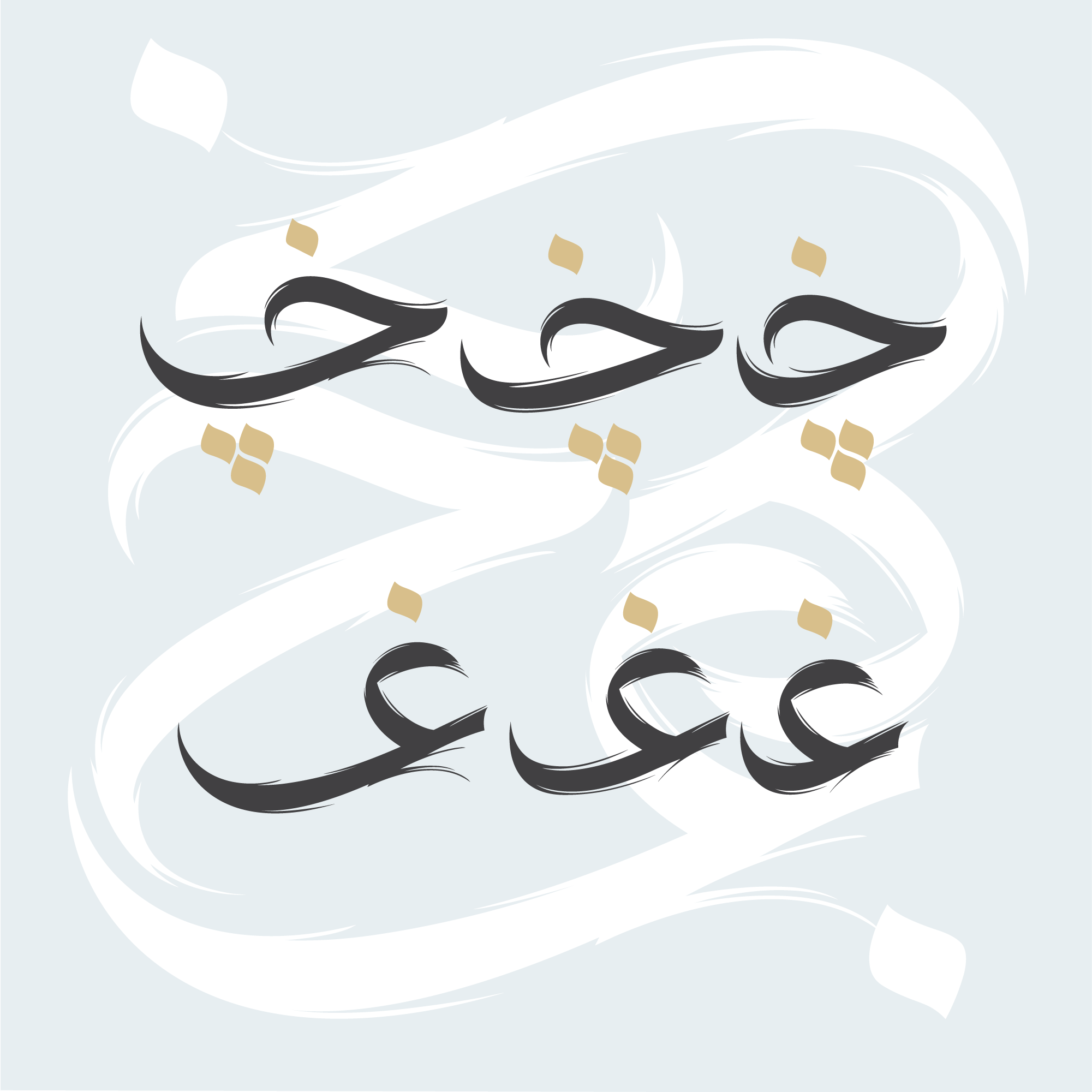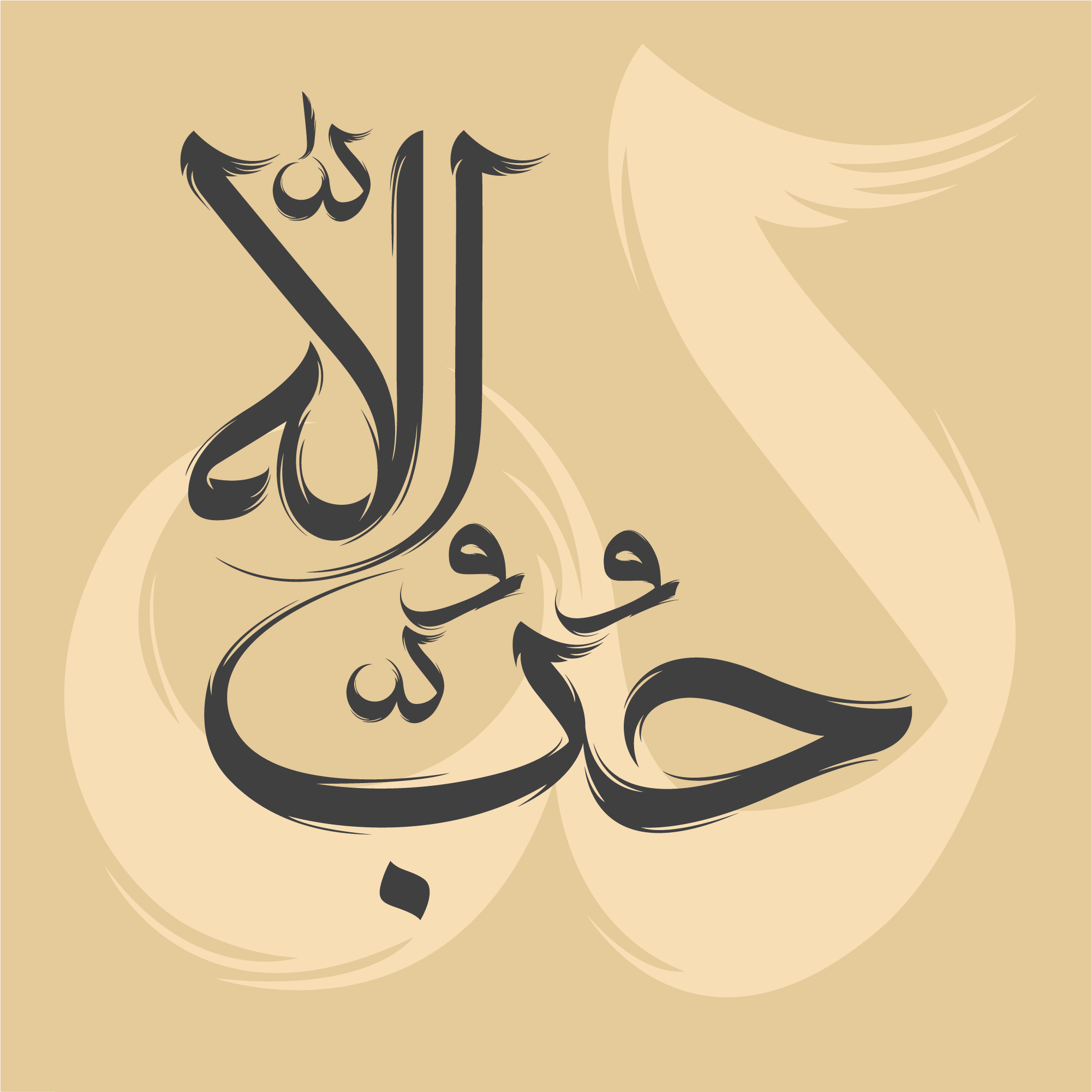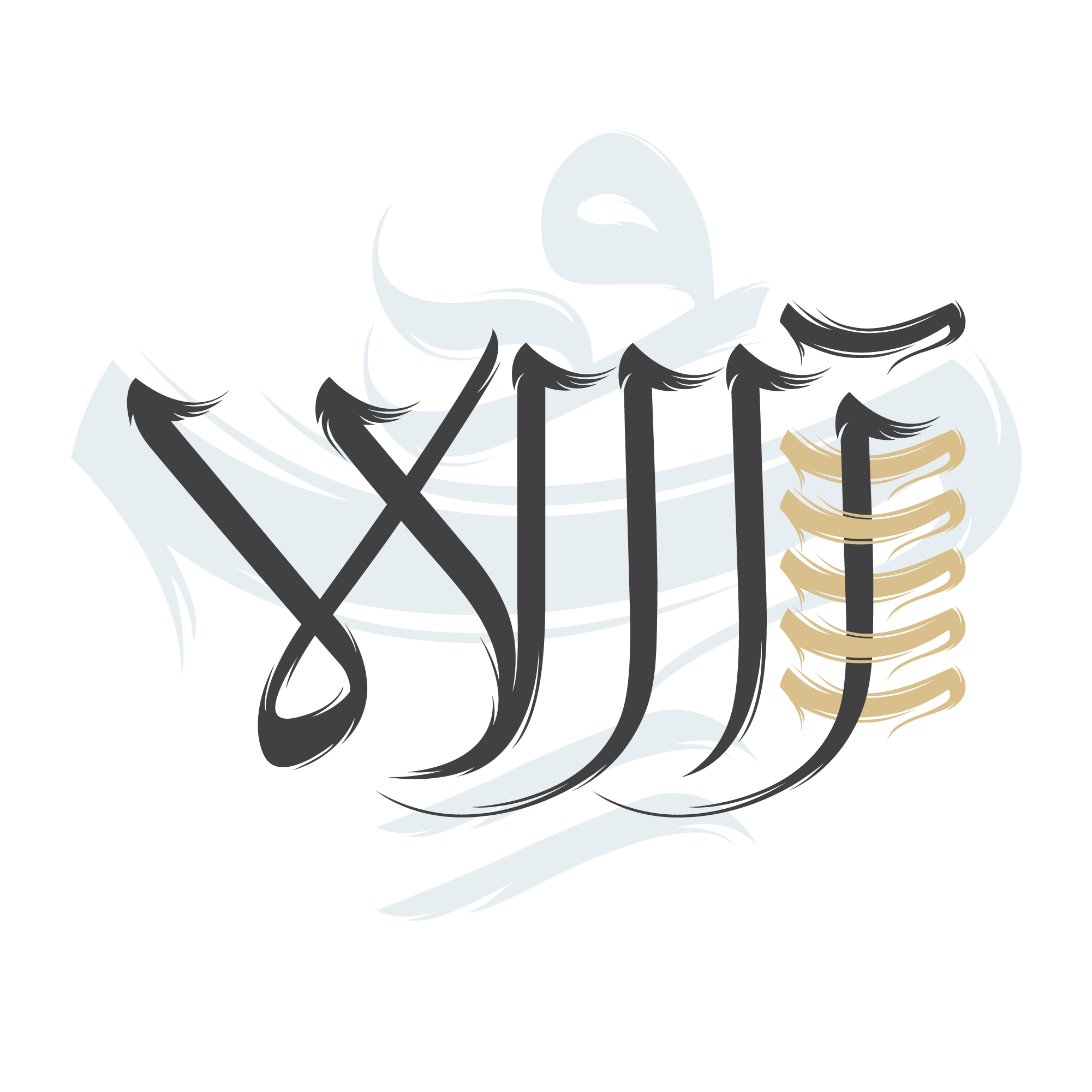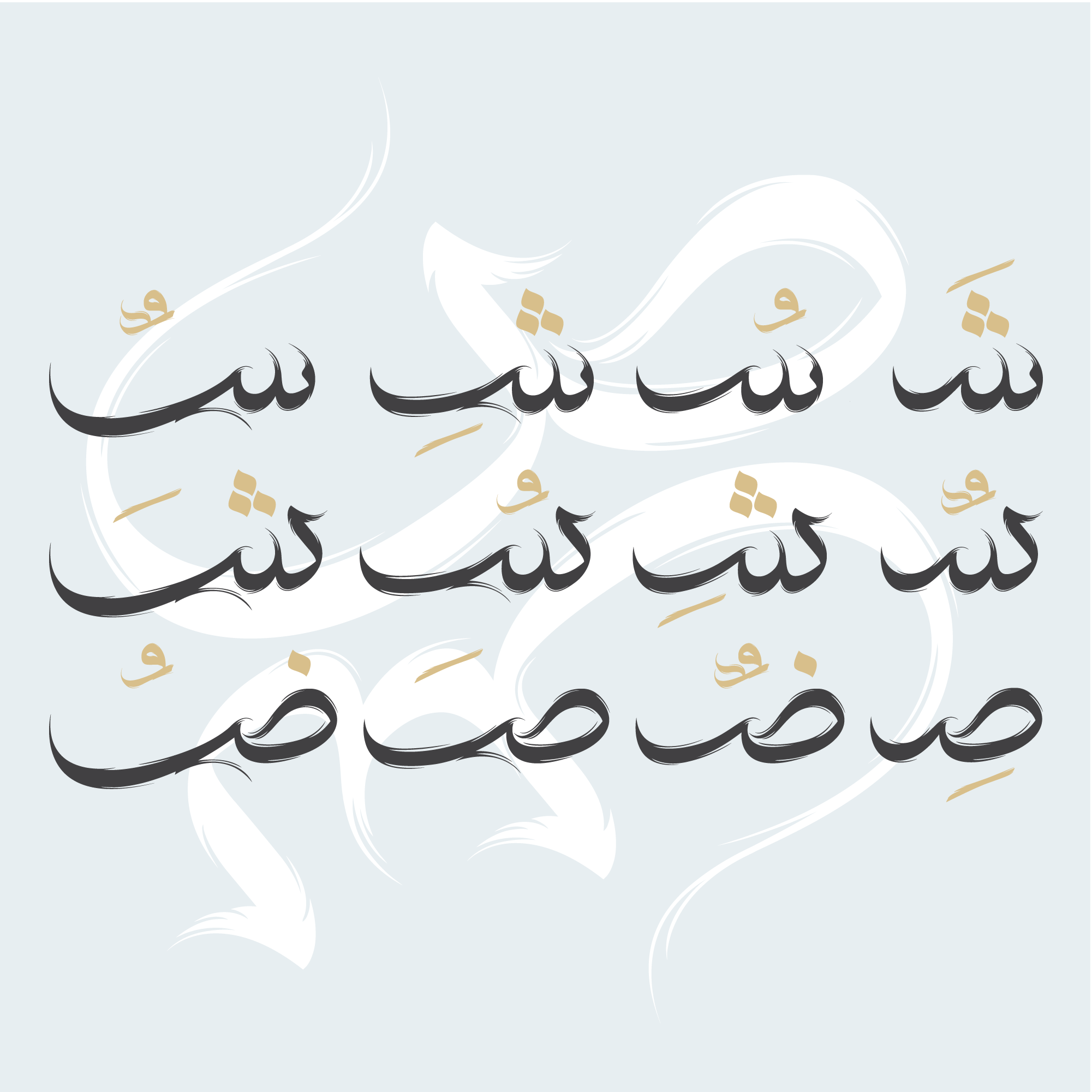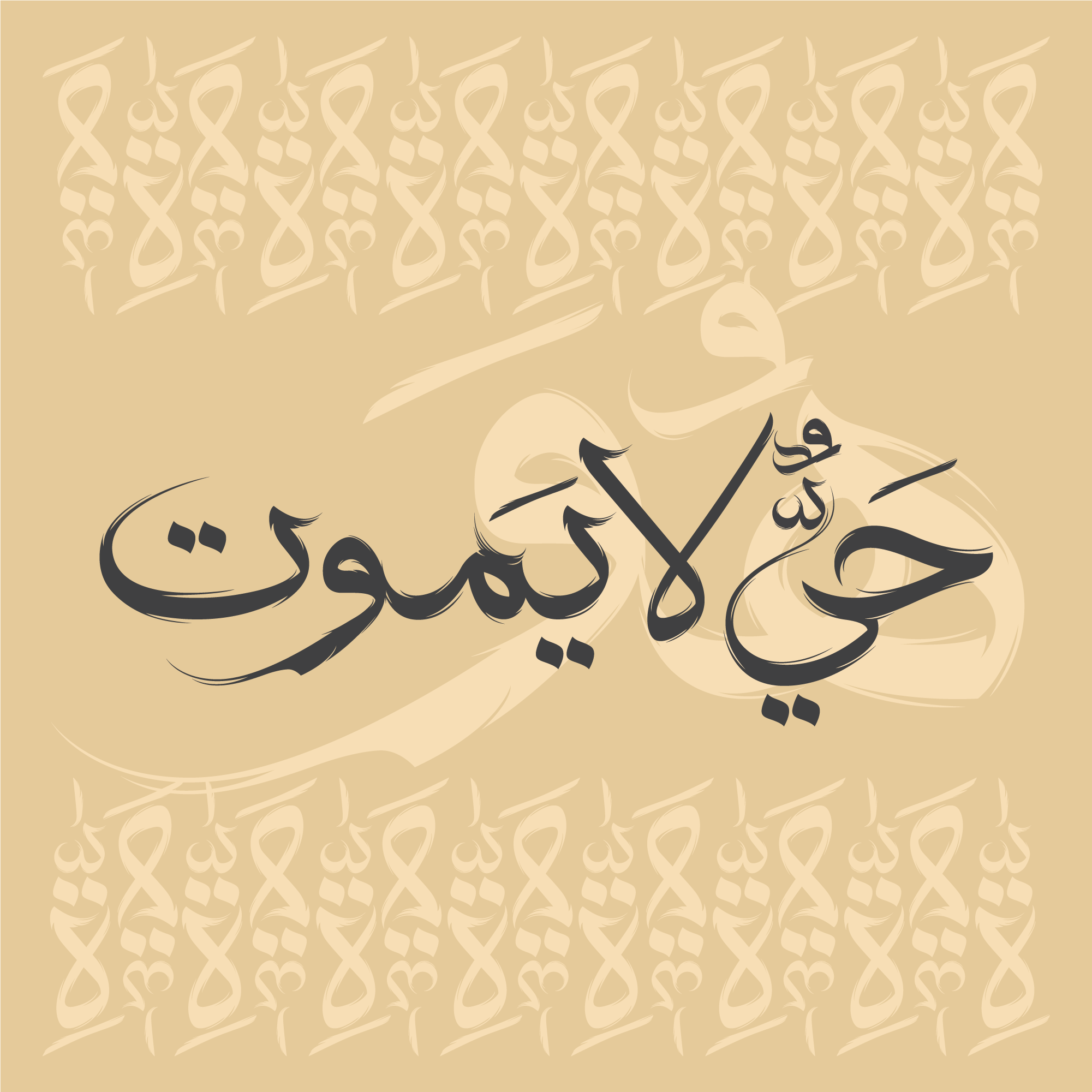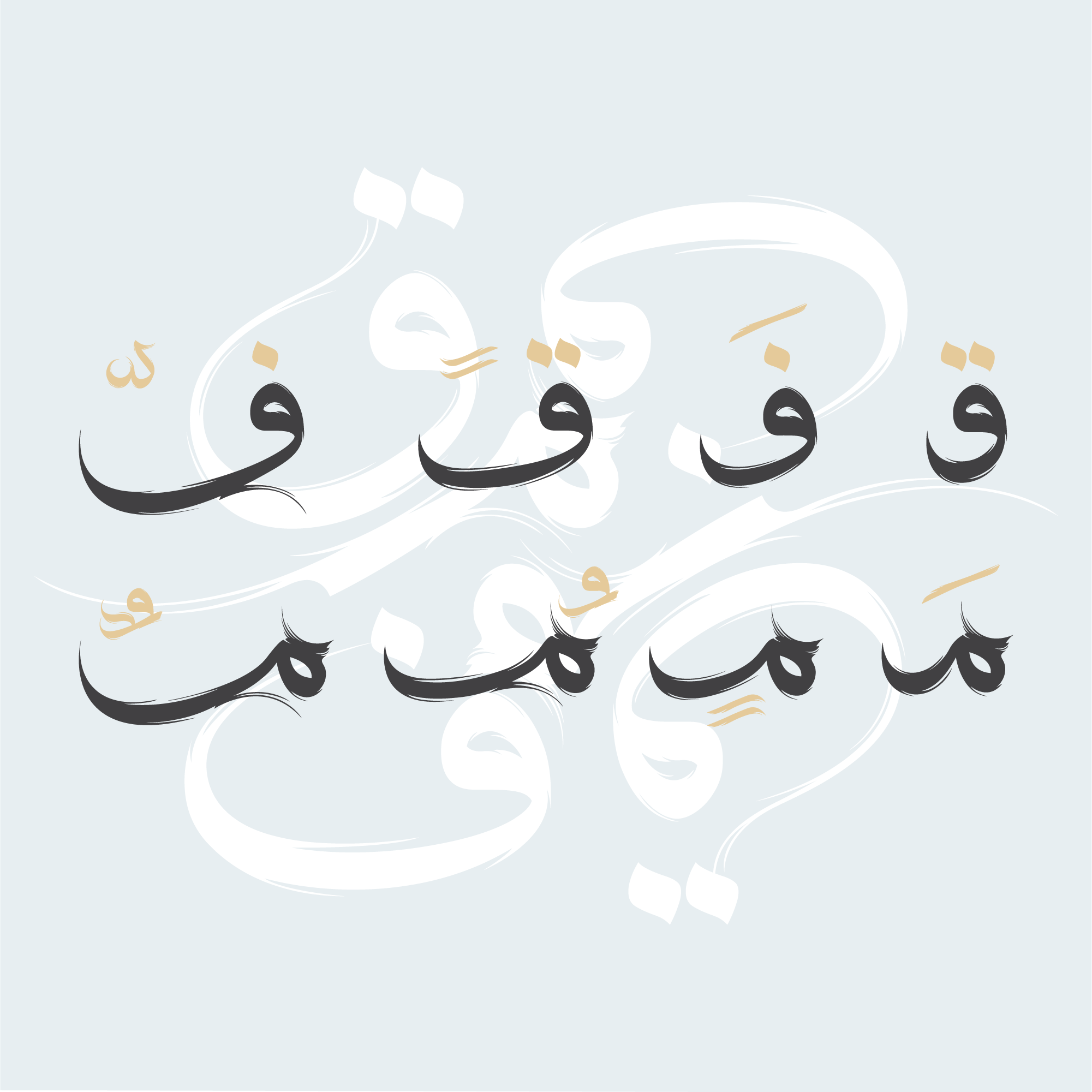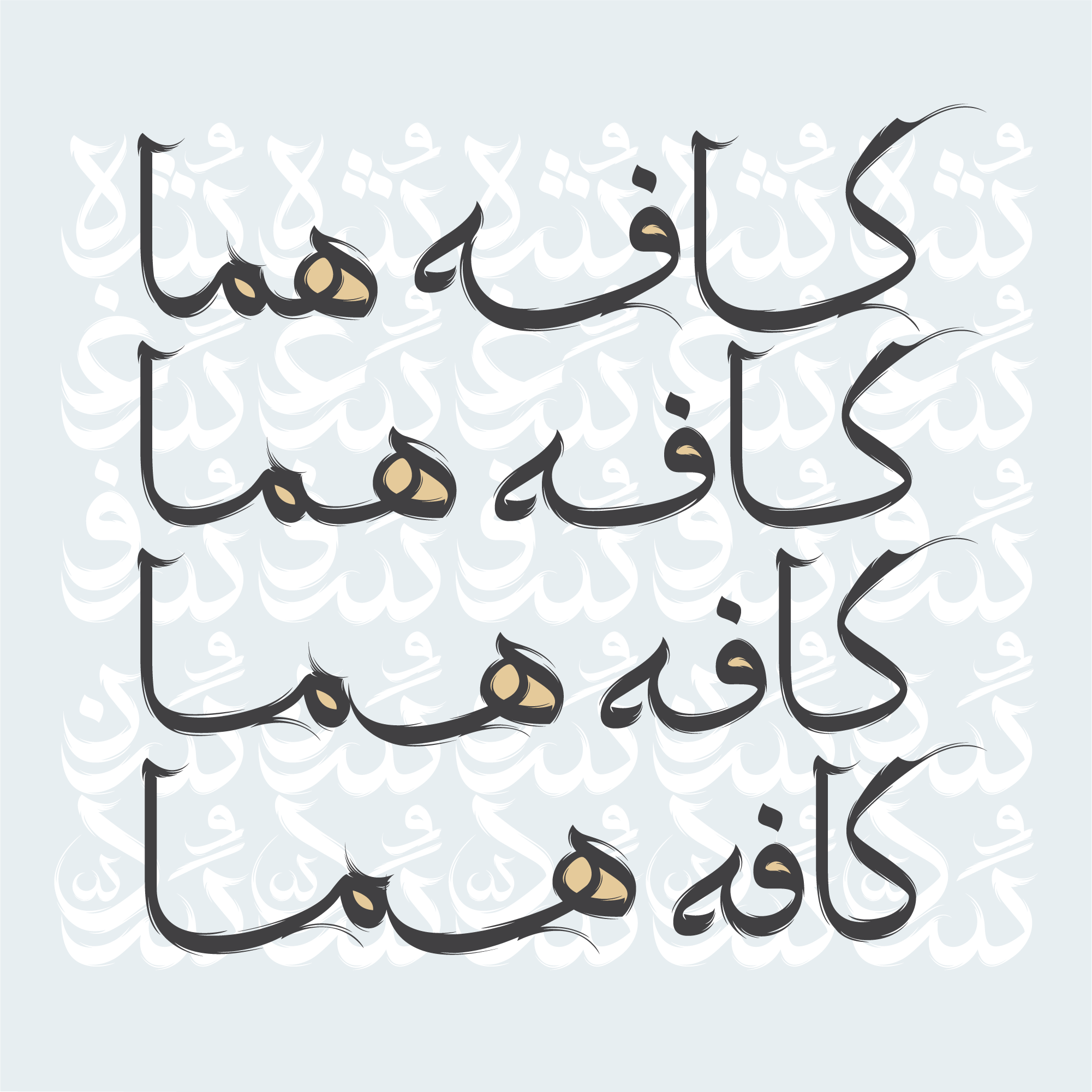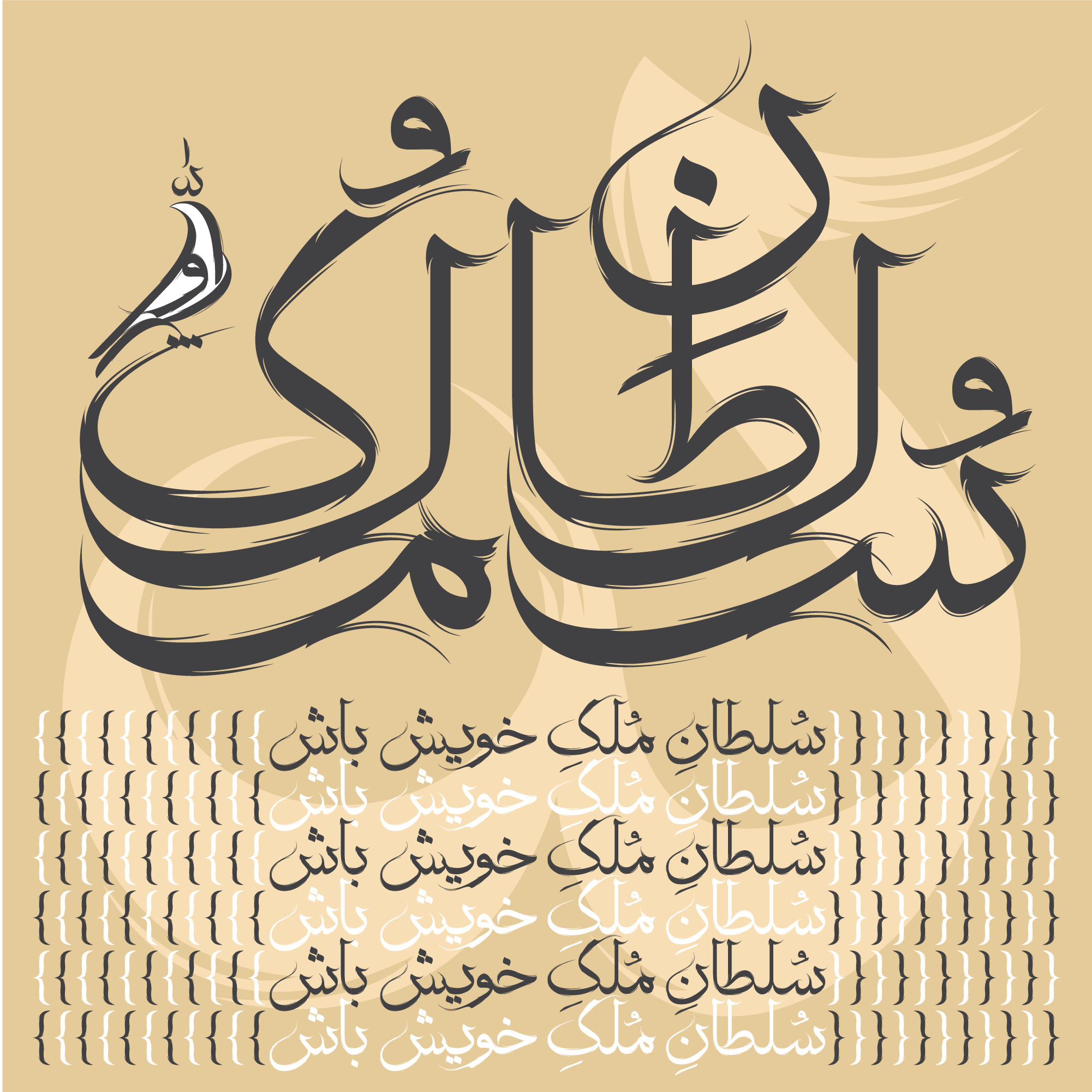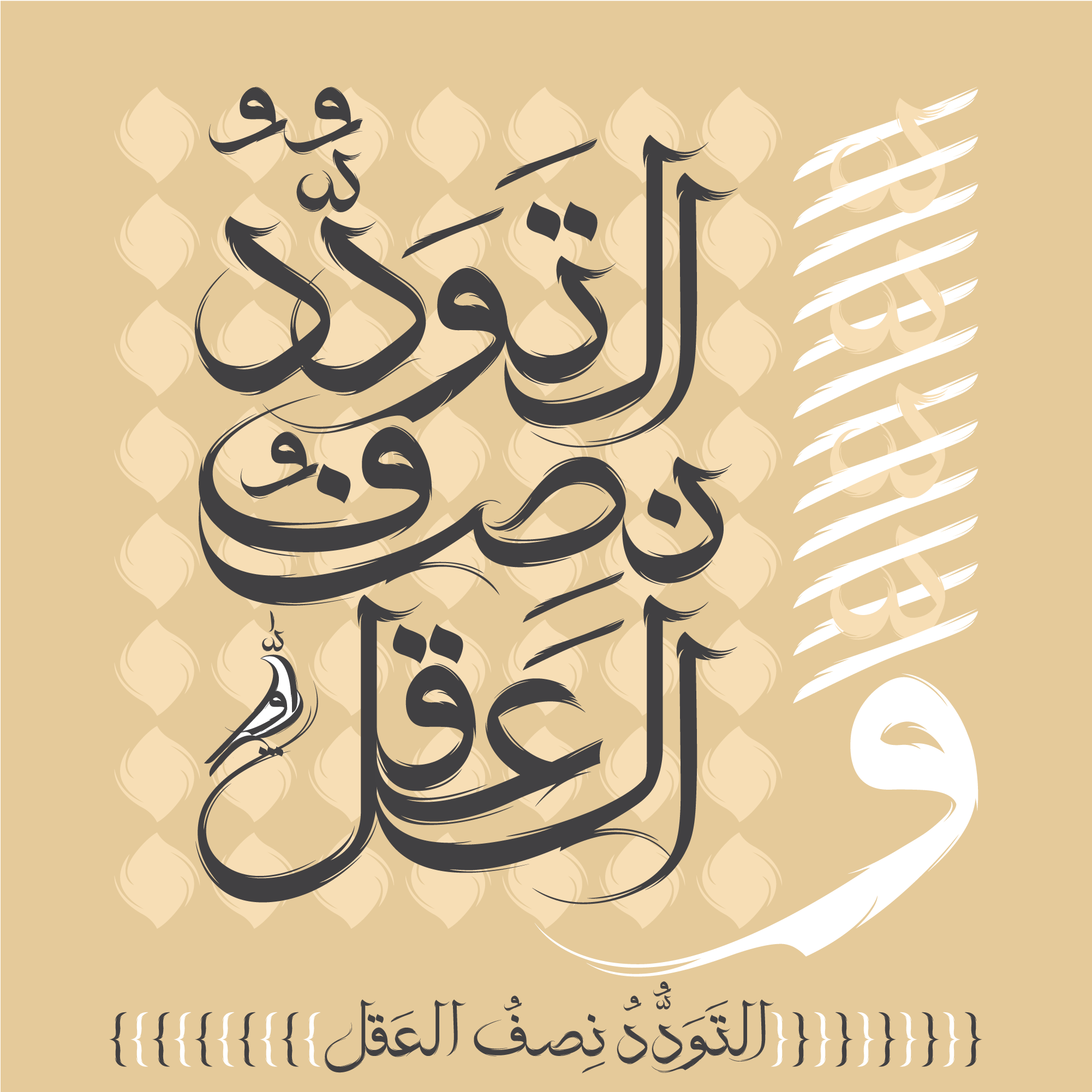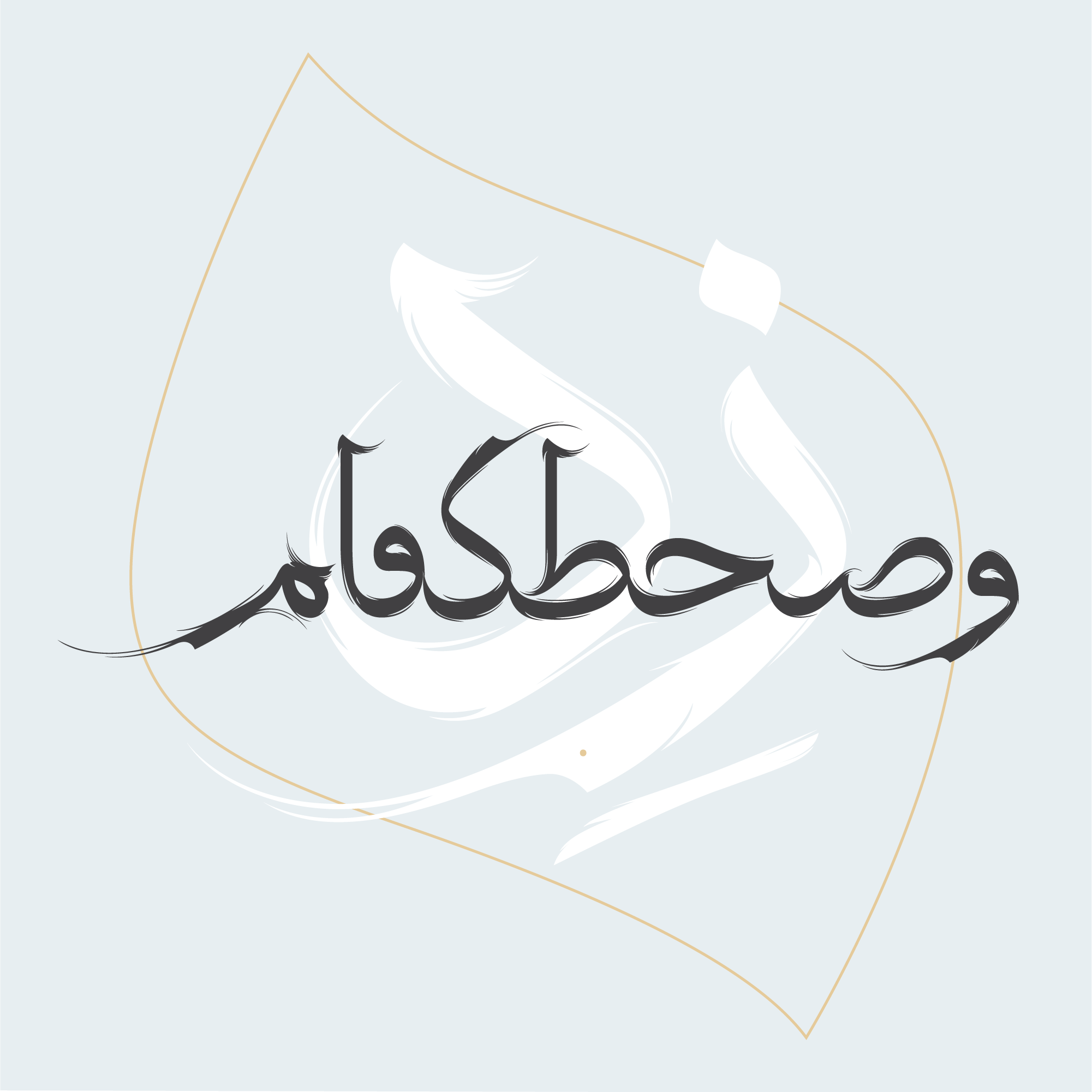
Rahrovan
Abolfazl Rahrovan is an experienced designer who has been using letters of his own creation in his graphic works for many years. These letters usually connect to each other outside the standard system and rules of conventional fonts, forming combinations based on the designer’s personal creativity.
Recently, at the suggestion of NoonFont, Rahrovan has turned his custom typefaces into digital fonts so that they can be made available to everyone through the NoonFont store.
Regarding this typeface, Abolfazl Rahrovan has said:
“ I have tried to preserve the spirit of calligraphy while presenting a new visual interpretation of this traditional art form. The result is a free-flowing and harmonious font that can be used to create attractive and distinctive typographic compositions. The fluid forms and delicate lines, combined with the structure of the letters, make this font especially striking when used in large sizes.”